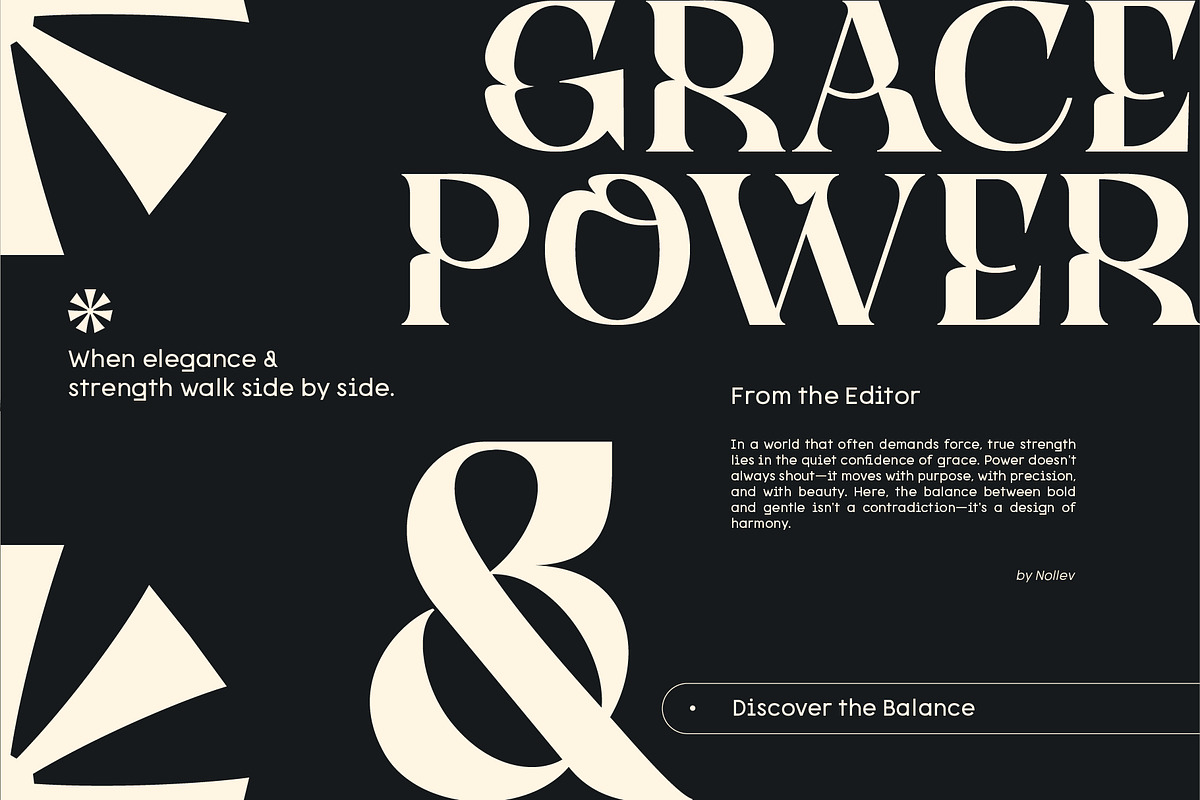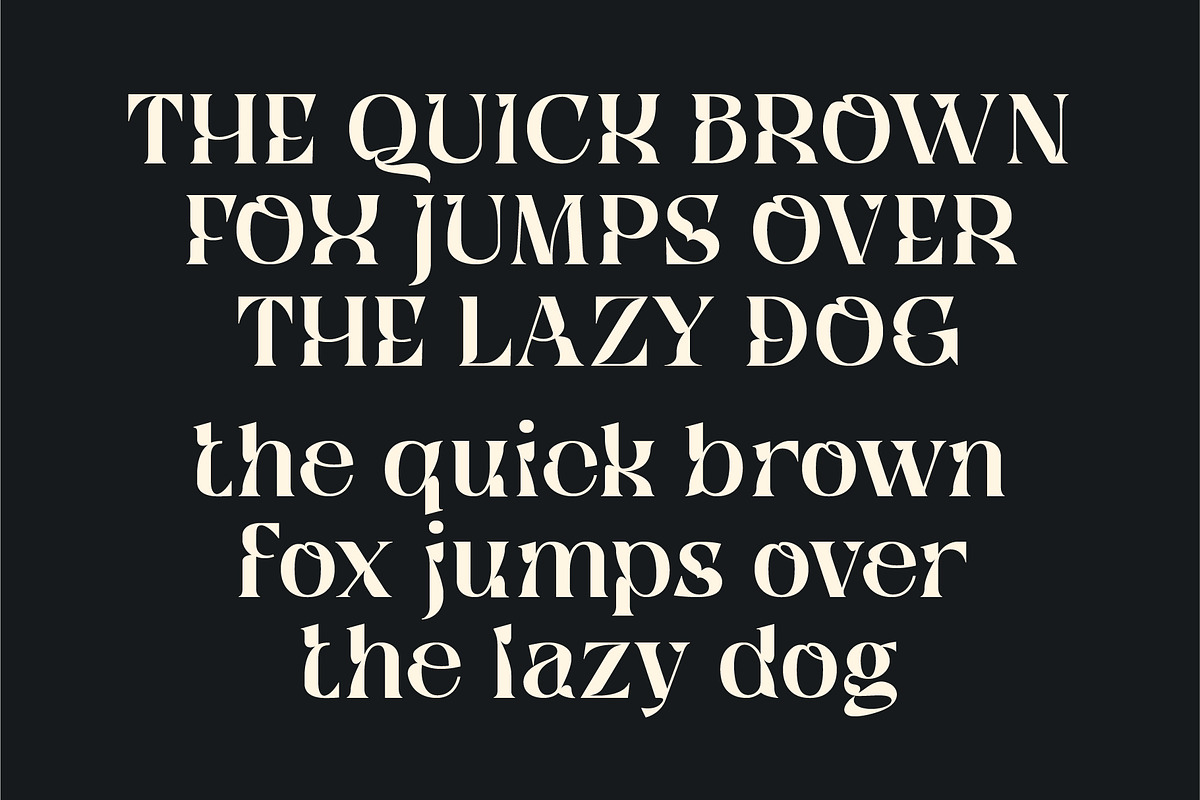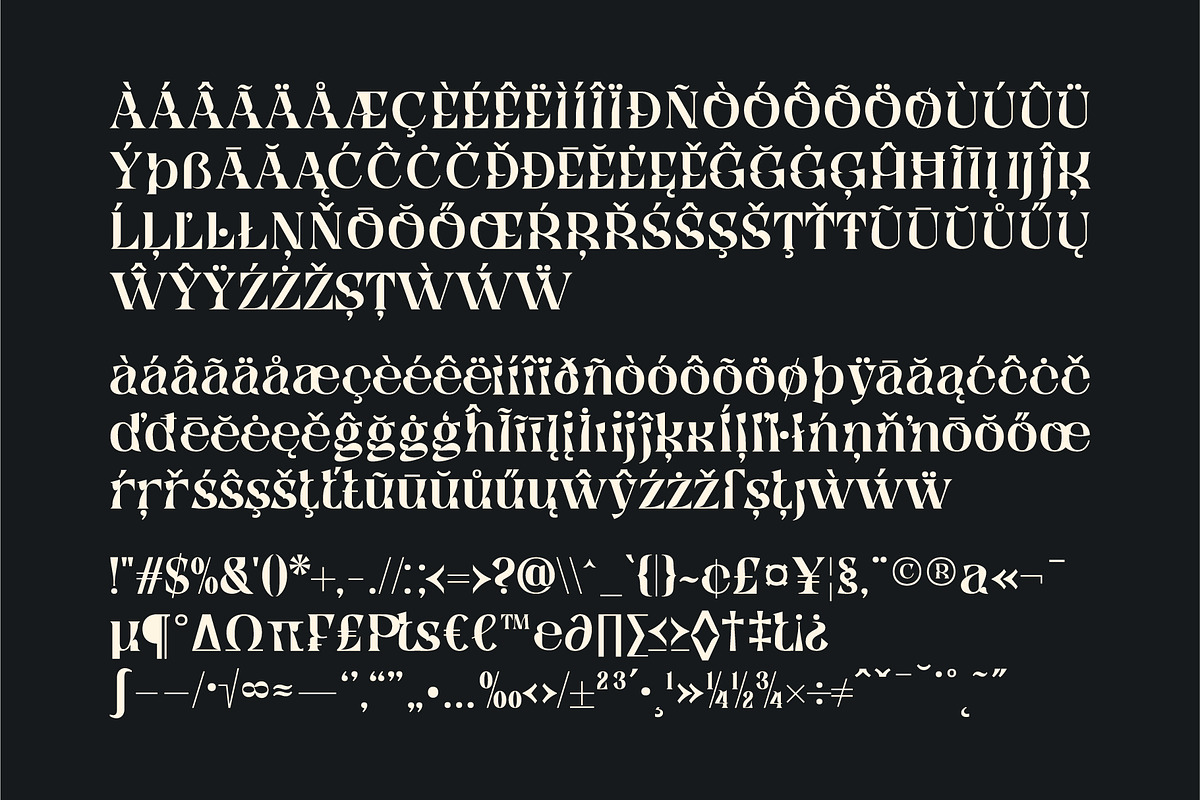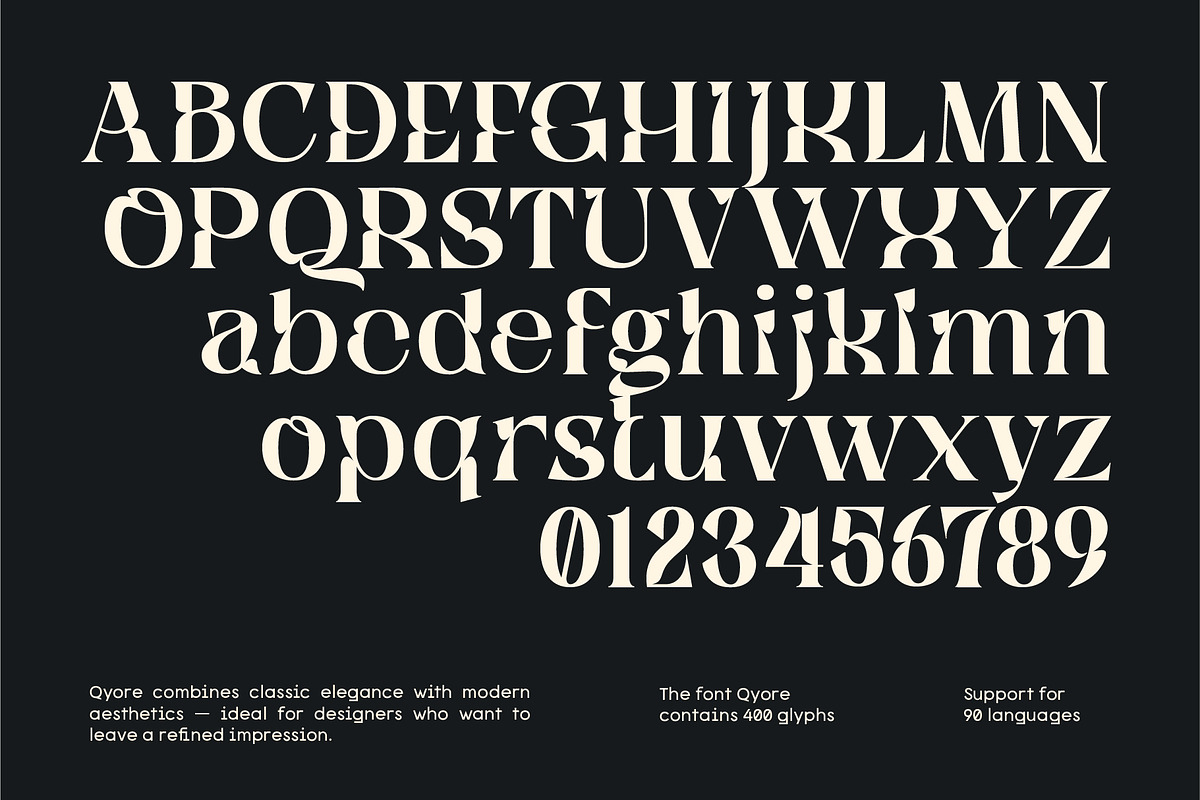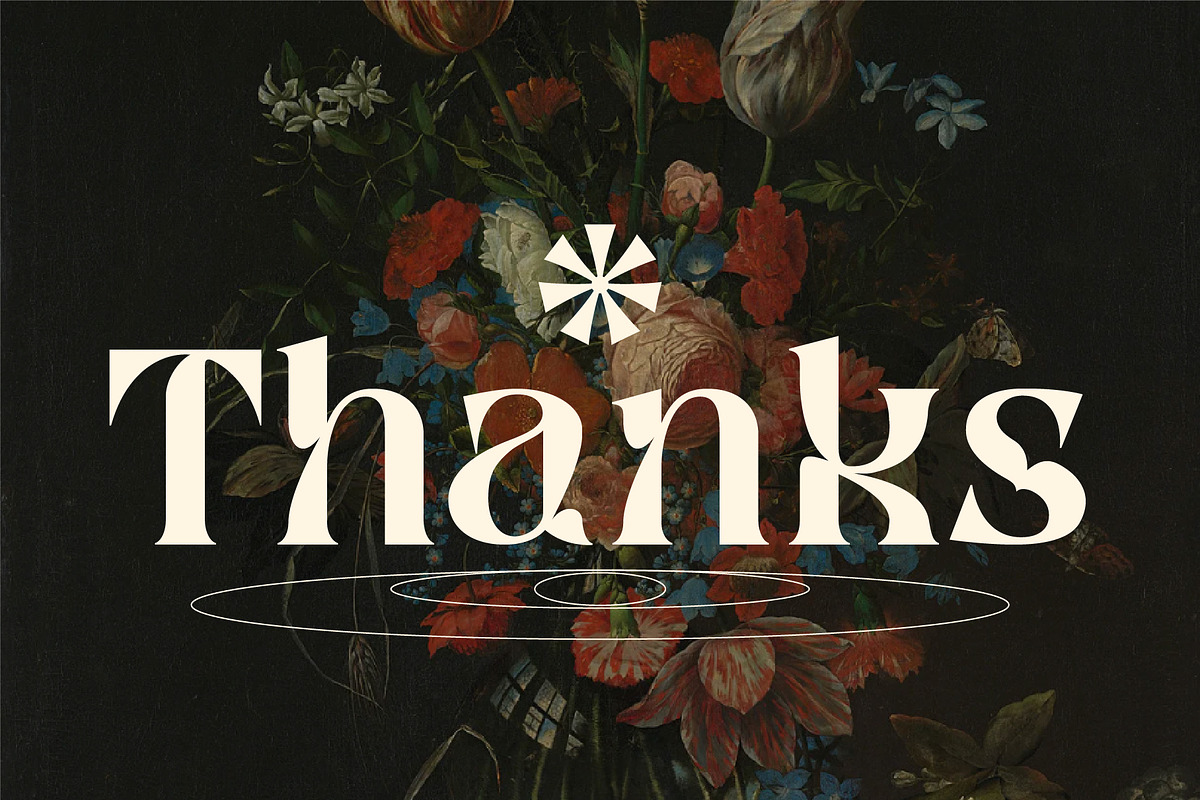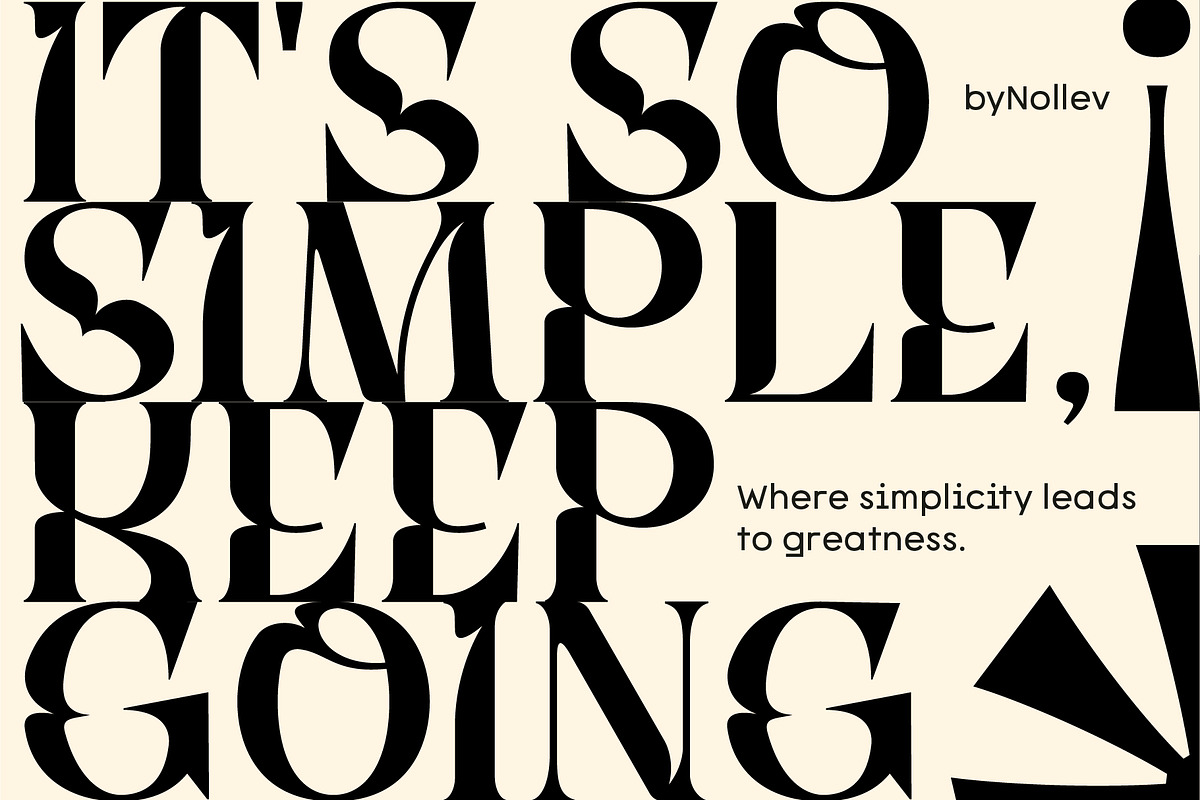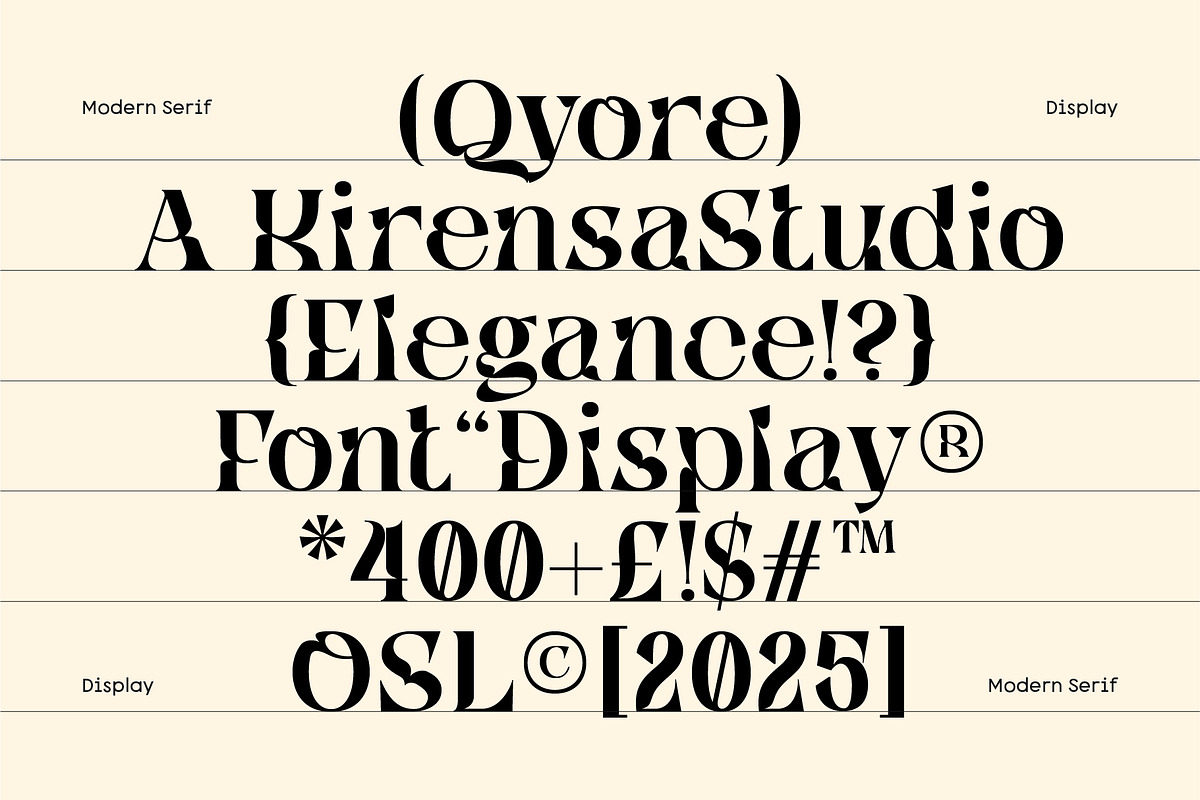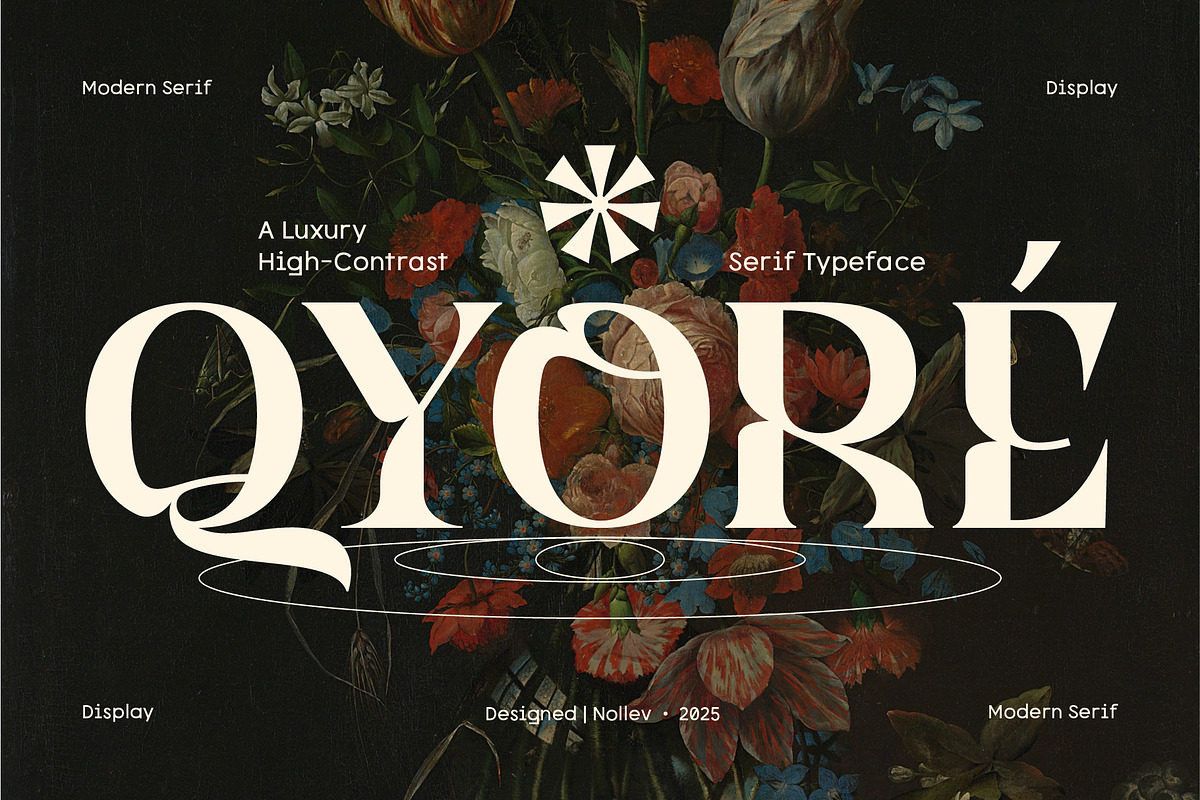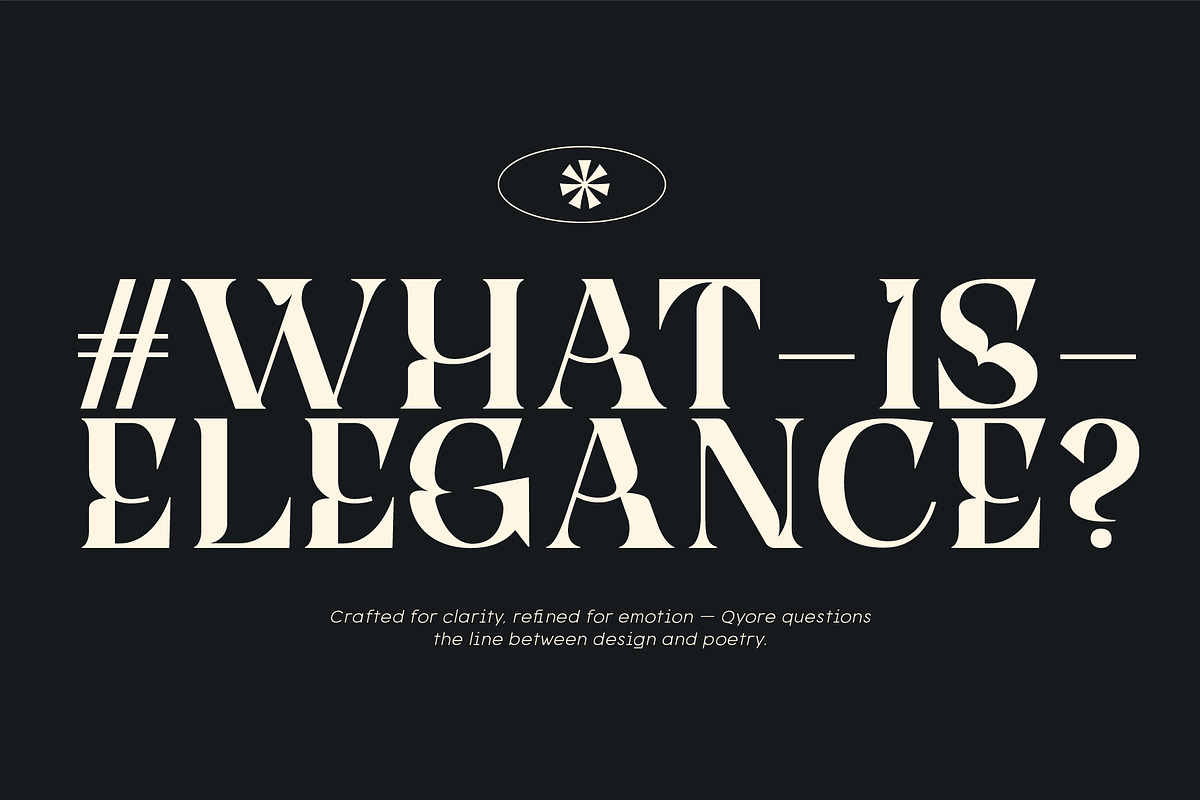
Qyore – Elegant Modern Serif
Qyore is a modern high-contrast serif typeface that blends classic elegance with bold, contemporary flair. Designed for those who want to make a statement, Qyore is ideal for premium branding, editorial layouts, packaging, and high-end creative projects.
- ✨ 1 Font Style – Carefully crafted for high-end display use
- ✨ 400+ Glyphs – Includes stylistic alternates, punctuation, symbols, and more
- ✨ Multilingual Support – Supports 90+ languages, from Western to Central European
- Modern Display Serif – Perfect for luxury logos, headlines, magazine titles, and brand identity
- High-Contrast Design – Striking and elegant, ideal for upscale and expressive design needs
- Global Ready – Fully equipped for international projects with extended Latin support